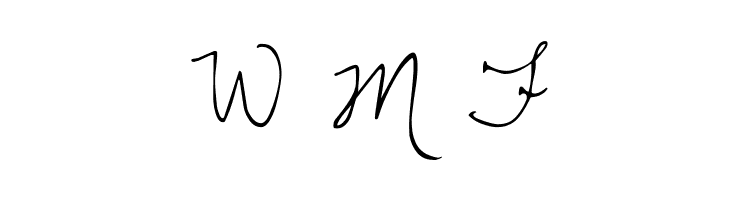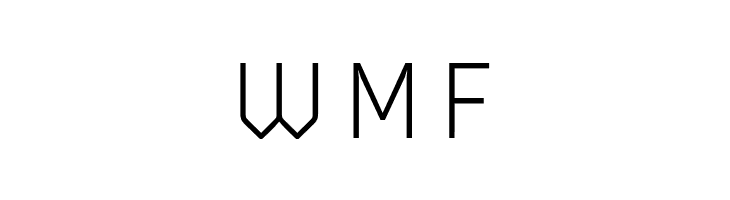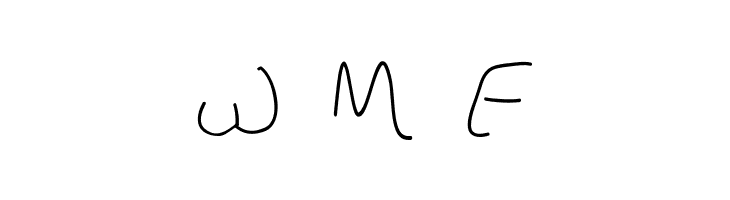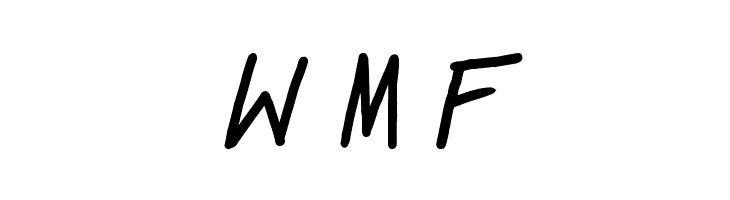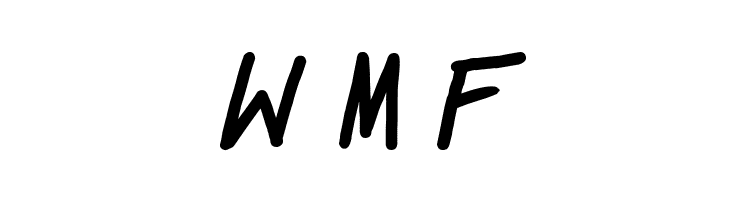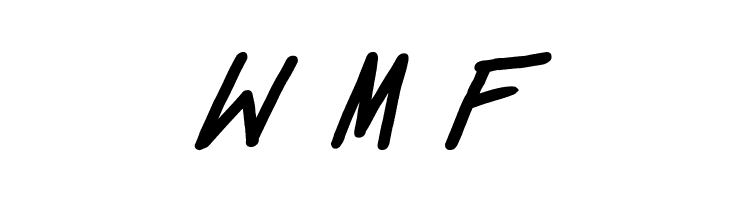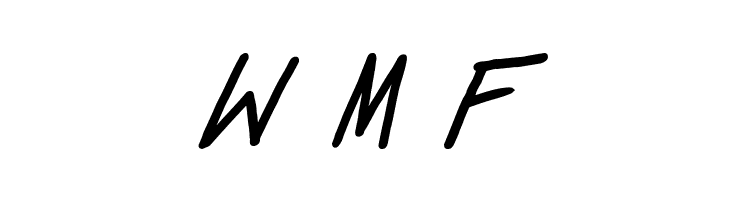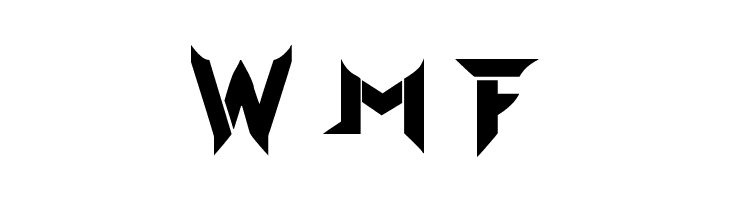
A casual, handwritten cursive font with elegant, flowing letters.
A flowing, cursive font with elegant, interconnected strokes.
A playful, handwritten font with smooth, flowing strokes and a casual appearance.
A playful, casual handwritten font with uneven strokes and a natural flow.
A bold, playful font with a 3D shadow effect and cartoonish style.
A bold, playful font with a cartoonish, three-dimensional style.
A dynamic, handwritten-style font with slanted, energetic letterforms.
A bold, handwritten font with a dynamic and energetic style.
A bold, italic, and handwritten-style font with a dynamic and expressive appearance.
A bold, italicized handwritten font with a dynamic and energetic style.
A whimsical and playful decorative font with curly and swirly elements.
A bold, angular font with a futuristic and energetic design.
A bold, geometric font with a modern, stencil-like design.
A modern sans-serif font with geometric shapes and uniform stroke width.
An ornate, medieval-inspired font with high contrast and decorative flourishes.
A modern, geometric sans-serif font with consistent stroke widths.
A modern, geometric sans-serif font with clean lines and minimalist design.
A playful, swash-style font with rounded, flowing letterforms.
A playful, unicase font with rounded edges and a friendly style.
A bold, rounded font with a playful unicase style.
A playful, rounded font with smooth, consistent strokes and a friendly appearance.
A playful, swash-style font with rounded edges and decorative flair.
A playful, rounded unicase font with bold strokes and a friendly appearance.
A playful, unicase font with rounded, smooth characters and a modern, friendly style.